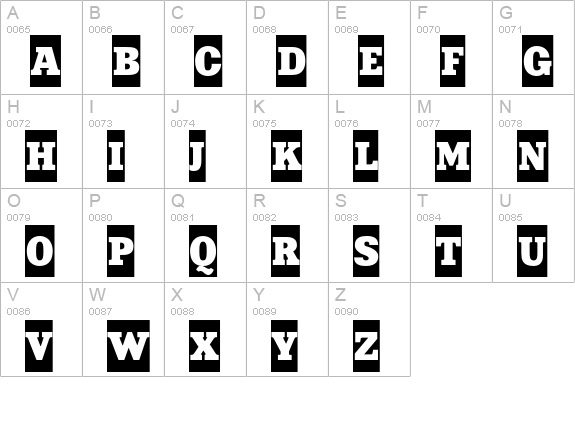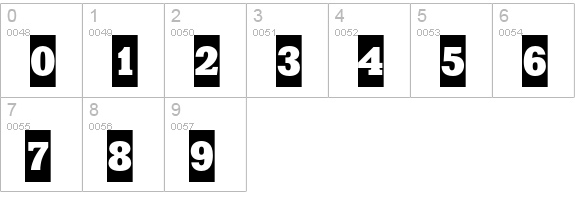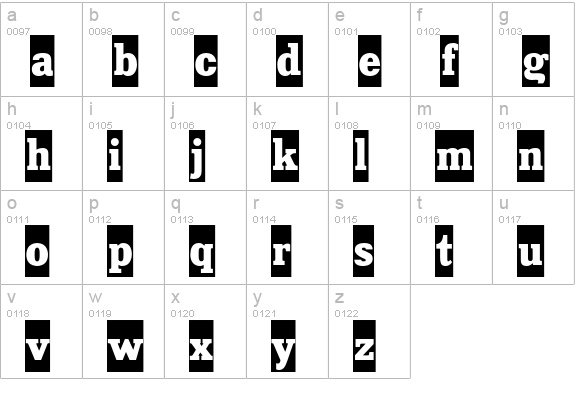
PT XeniaCameo Cyrillic Font Details
PT XeniaCameo Cyrillic font is a beautiful and elegant typeface that exudes sophistication and charm. Its intricate details and graceful curves make it a perfect choice for projects that require a touch of luxury and refinement. The Cyrillic characters add a unique flair to this font, making it stand out from the rest. What's even better is that PT XeniaCameo Cyrillic font is available for free download at FontsMarket.com. This means you can easily access this stunning font and use it in your personal or commercial projects without any cost. Don't miss out on the opportunity to enhance your designs with this exquisite typeface that will surely leave a lasting impression.